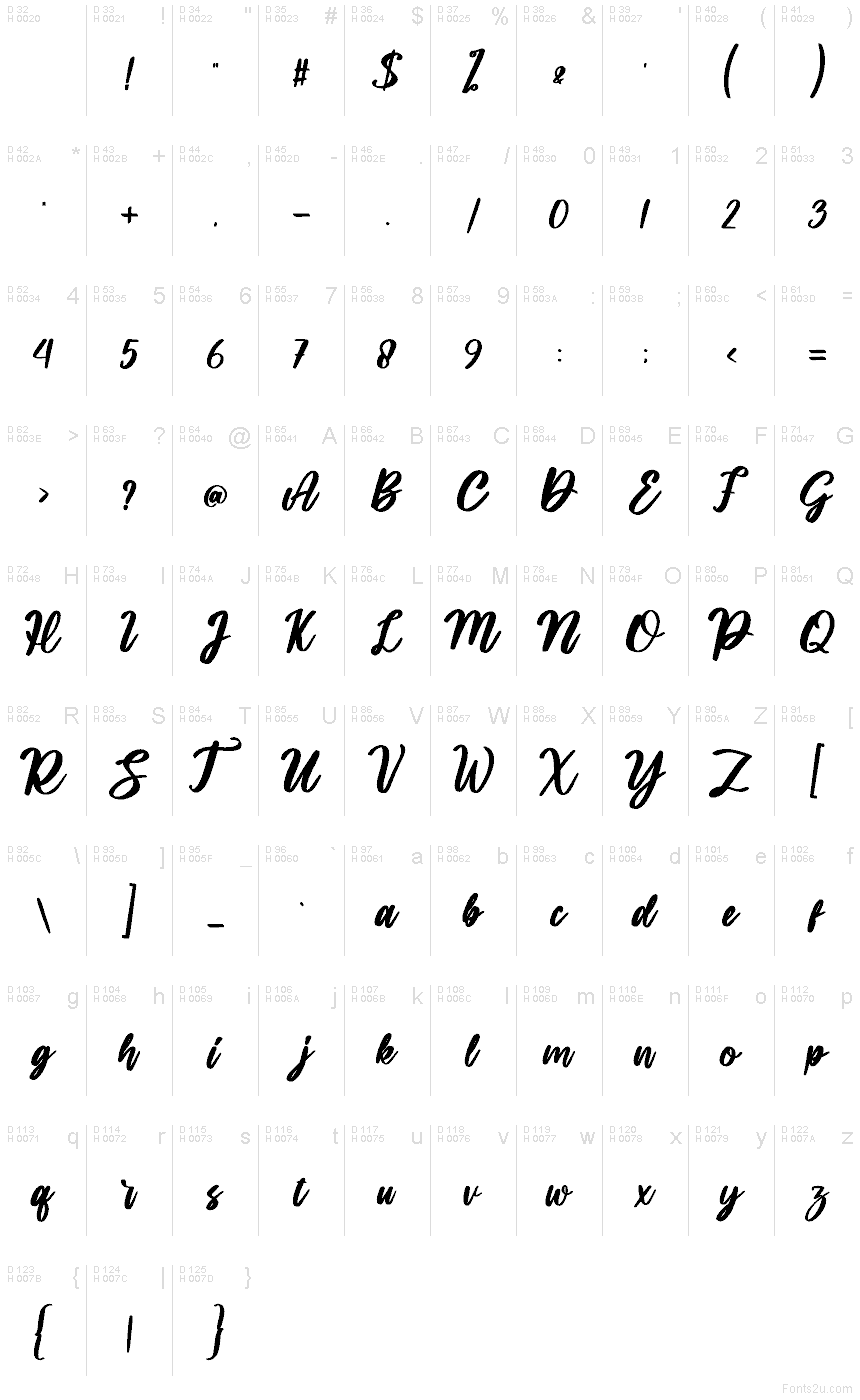
Vaglast
Vaglast font by Skiiller Studio is a free handwritten font with a flowing, energetic style and script appearance. Its bold letters are highly expressive and blend a modern-retro fusion vibe that will elevate your typography. This signature-like typeface integrates symbols into an individualistic energy.